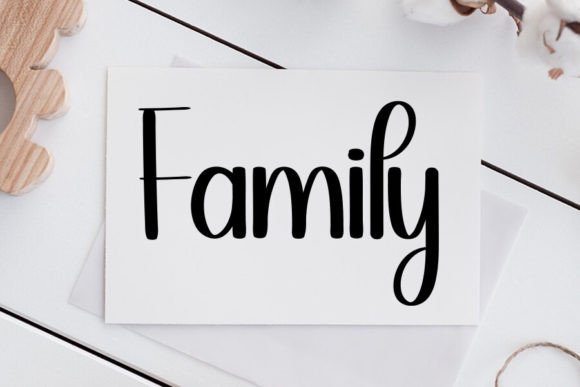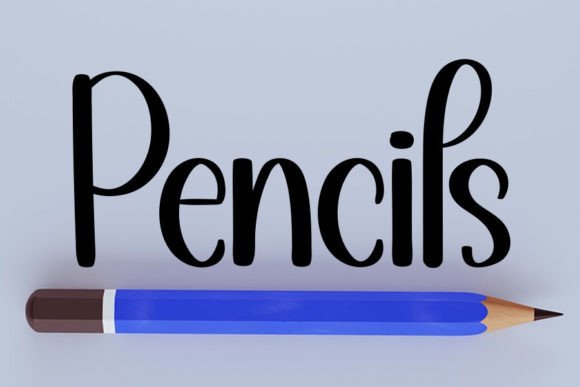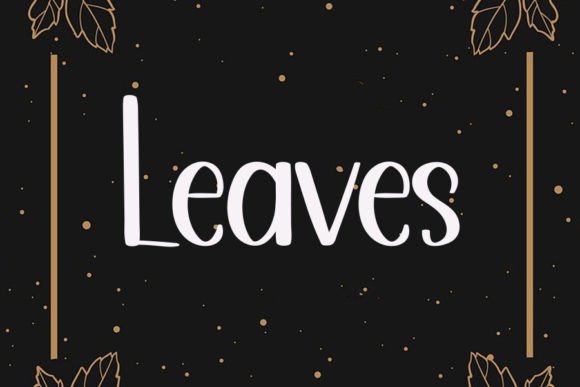
Introduction to Sickness Font
Enter the Sickness Font, a fun and friendly handwritten font that’s sure to become your go-to companion for any creative project. With its high quality design and versatility, this font is perfect for crafting, digital design, presentations, or even making greeting cards. The best part? You can download it for free, complete with a transparent background that makes it easy to work with.
Sickness Font
- High-quality design resource with a unique and quirky style, ideal for creative projects.
- Available in 4 different font styles, each with its own distinct personality, making it perfect for adding a touch of whimsy to any design.
- Perfect for designers looking for a unique and eye-catching font to add a touch of personality to their creative projects, from branding and marketing materials to digital graphics and artwork.
Honest Review: Sickness Font
I recently came across the Sickness Font, a free download that caught my attention due to its unique design and high quality. As a designer, I appreciate resources that can elevate my creative projects and give them a distinctive look.
The font’s transparent background makes it easy to layer over other design elements, allowing for endless creative possibilities. I was particularly impressed by its versatility and the range of use cases it can be applied to.
Here are some of the things that work well:
- ✨ Unique design that stands out from the crowd
- ✨ High quality, making it perfect for professional projects
- ✨ Free download, making it accessible to designers of all levels
- ⚠️ Limited character set, which may not be suitable for long-form text
- ⚠️ May not be suitable for body text due to its decorative nature
Overall, I’m impressed by the Sickness Font and its potential to add a touch of creativity to my design projects. Its unique design and high quality make it a valuable resource for designers, and I would definitely recommend it for creative projects that require a distinctive look.
Sickness Font
Sickness Font is a unique and eye-catching design resource that can elevate your creative project to the next level. With a high quality and transparent background, this font is perfect for designers looking to add a touch of elegance to their work.
Sickness Font is perfect for designers working on creative projects such as logos, brochures, and social media graphics. It’s also great for adding a touch of elegance to presentations and documents.